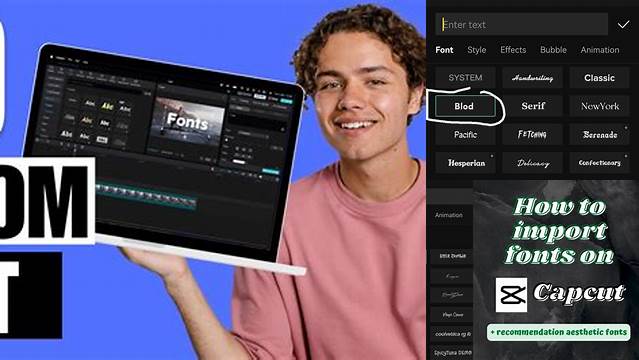
CapCut: Download Custom Fonts To Elevate Your Videos
Hey guys! Want to make your CapCut videos stand out? One of the coolest ways to do that is by using custom fonts. Forget those boring, default options! Adding your own fonts can seriously level up your video projects, giving them a unique and professional vibe. In this article, we're diving deep into how you can download and install custom fonts for CapCut, making your editing game stronger than ever. So, let's get started and explore the world of typography in video editing!
Why Use Custom Fonts in CapCut?
Custom fonts can dramatically improve the visual appeal and branding of your videos. Let’s face it, the default fonts are okay, but they lack personality. Custom fonts allow you to inject your unique style and create a consistent brand identity. Whether you’re creating content for YouTube, TikTok, Instagram, or any other platform, having access to a variety of fonts can make your videos more engaging and professional. Think about it: the right font can convey the tone and message of your video much more effectively. A playful font for a children's video? A sleek, modern font for a tech review? The possibilities are endless! Plus, using custom fonts helps you stand out from the crowd. In a sea of similar content, unique typography can catch the viewer's eye and keep them hooked. So, if you're serious about your video content, mastering the art of custom fonts is a must.
Finding the Right Fonts
When choosing a font, think about your brand and the overall aesthetic you're aiming for. Is it modern and minimalist? Fun and quirky? Elegant and classic? Make sure the font matches the tone of your video. Also, consider readability. A fancy, elaborate font might look cool, but if it's hard to read, viewers will tune out. Always test your font choices on different devices and screen sizes to ensure they look good across the board. And remember, less is often more. Stick to a maximum of two or three fonts per project to keep things cohesive.
Sometimes, things don’t go as planned. Here are a few common issues you might encounter and how to fix them:
Font Doesn't Appear in CapCut:
Make sure the font is properly installed on your device. Double-check the installation steps.
Restart CapCut. Sometimes, a simple restart is all it takes.
Ensure the font file is compatible with your device's operating system.
- Test on Different Devices: Always preview your videos on different devices to ensure the fonts look good everywhere.
So there you have it! Adding custom fonts to CapCut is a game-changer for your video editing. It allows you to personalize your content, reinforce your brand, and stand out from the crowd. By following this guide, you can easily download, install, and use custom fonts to create stunning videos that capture attention and leave a lasting impression. Now go ahead, get creative, and let your fonts do the talking!